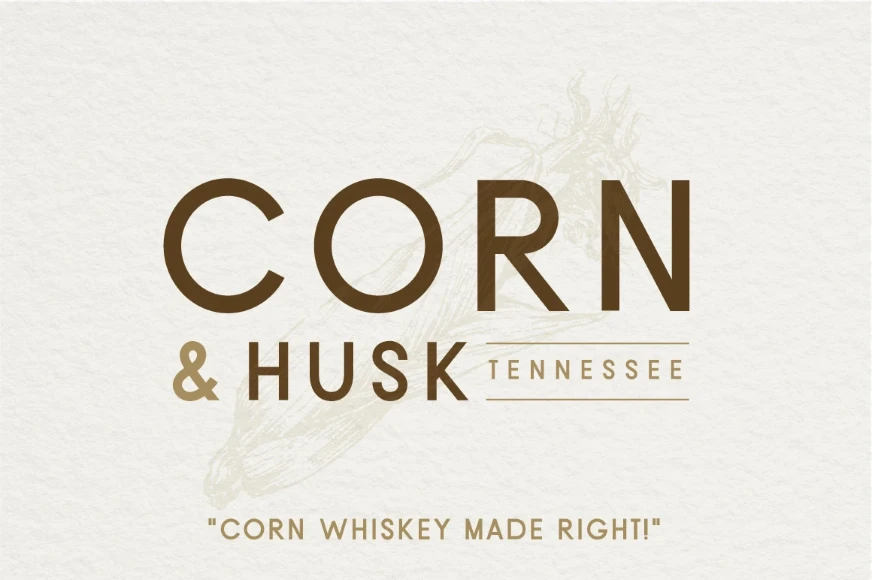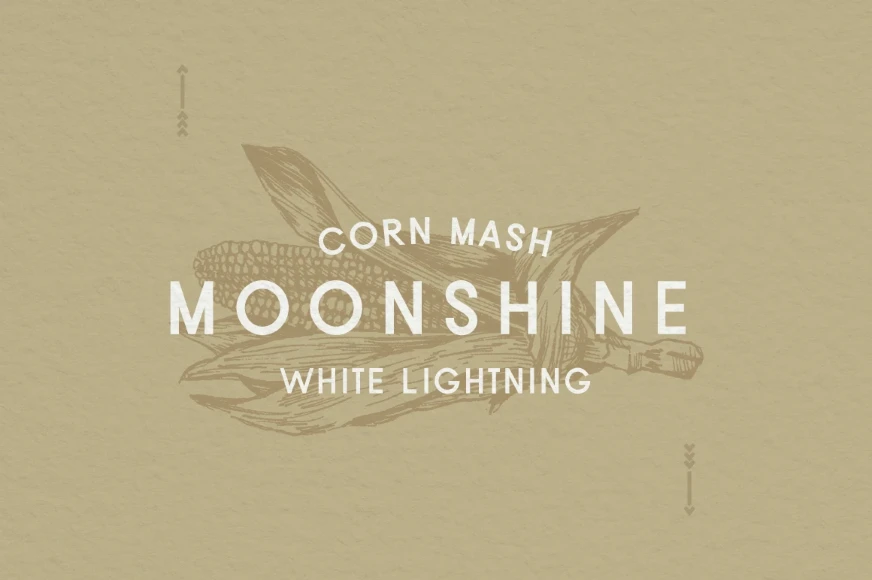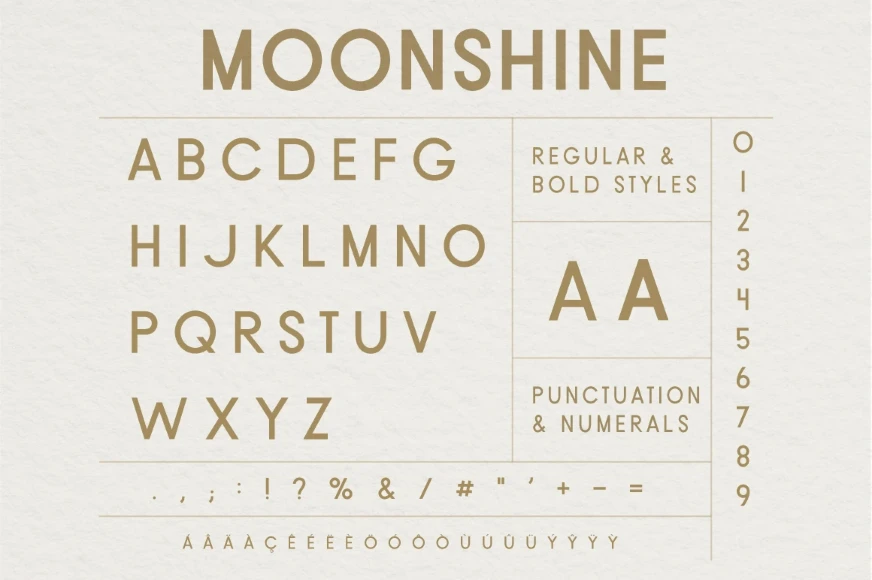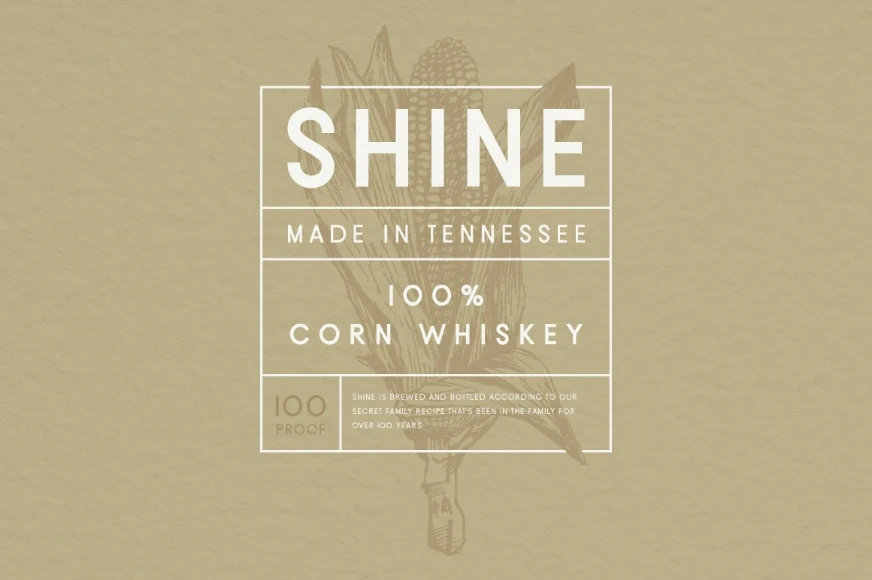
Moonshine
Moonshine is an all-caps geometric sans serif font family with a commanding presence. It’s a classic, clean, and versatile typeface inspired by my hometown. Created with readability in mind, it is excellent for headlines and body text. Ideal for branding, invitations, logos, posters, book covers, magazines, or any project that requires typographic distinction.